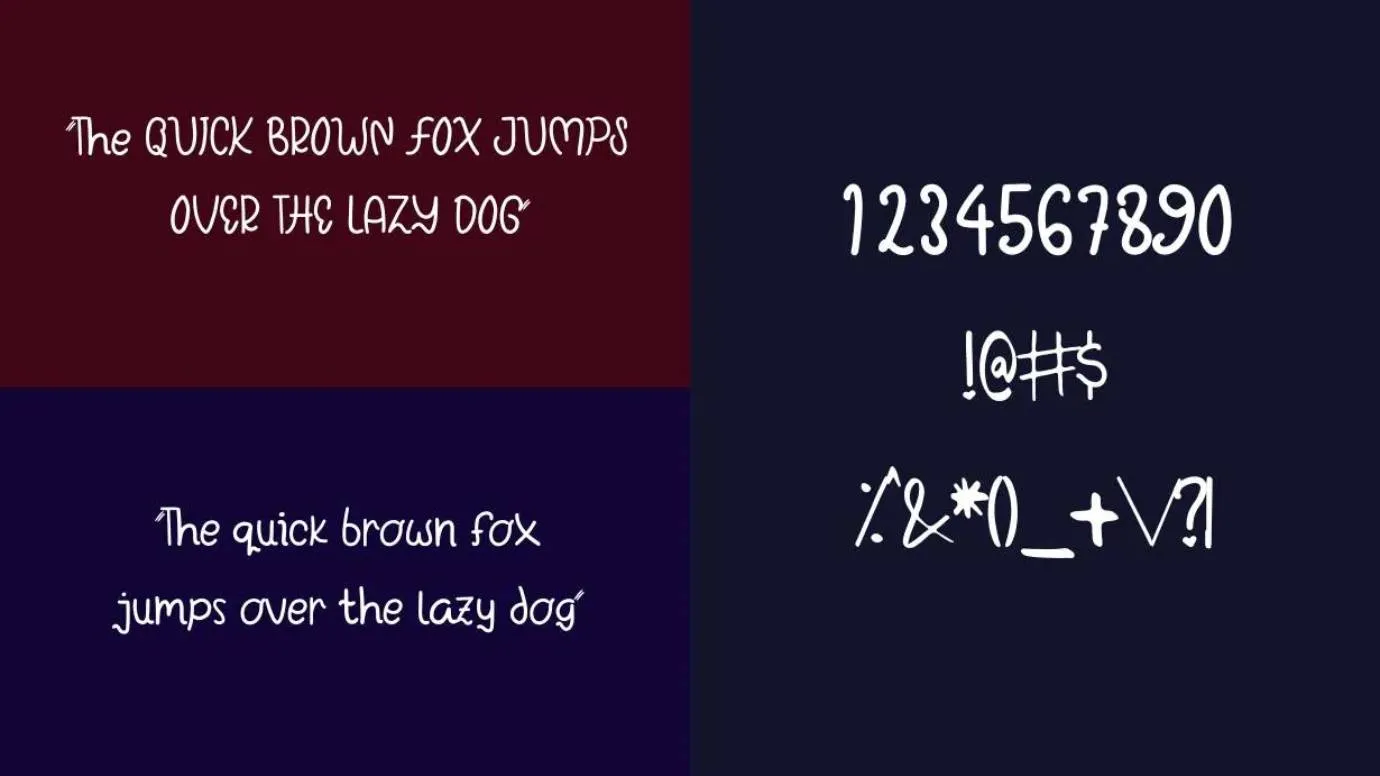
Honey Bunny Font is a very famous handwritten font that is basically used in a cartoon series which is launched by India. This interesting font was designed by Vladimir Nikolic.
Honey Bunny Cartoon Font
NameHoney Bunny Cartoon Font
DesignerFajar Wicaksono
FoundryBooga Letter
TypeHandwritten
Date Released2020